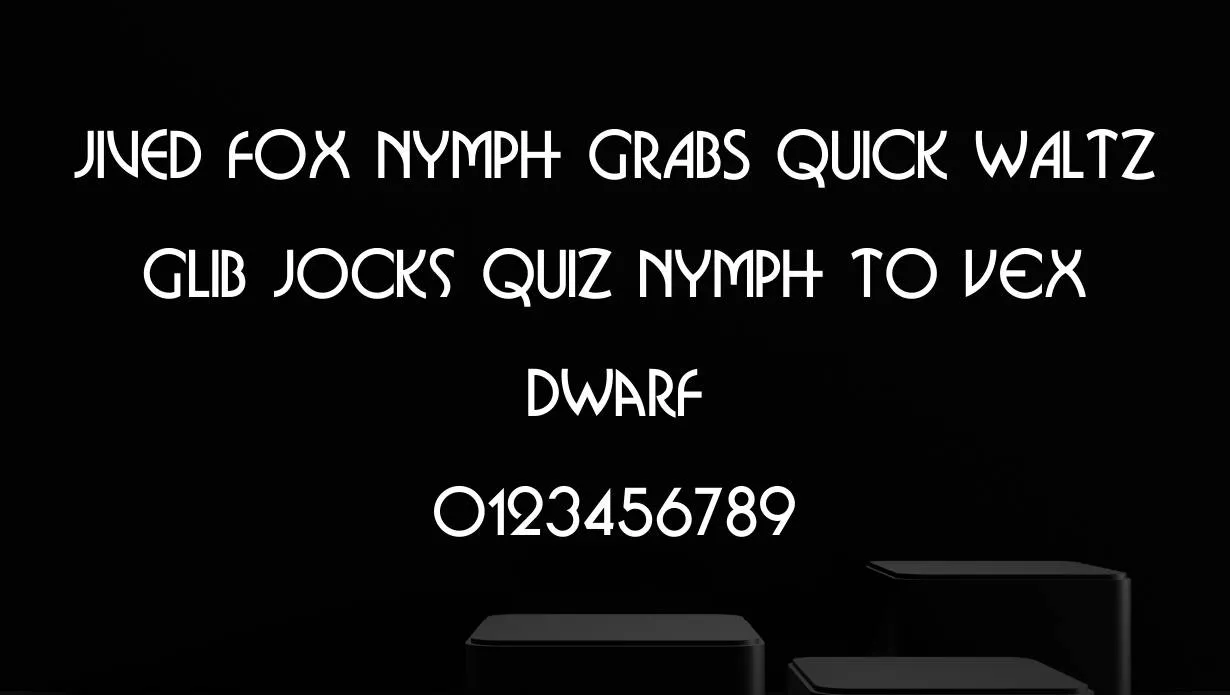
Omnibus Font is a fancy typeface designed by American-type designer Cyrus Highsmith. The typeface was released in 2007 through the Font Bureau foundry.
Omnibus’s most distinctive feature is its “unicase” design. In a traditional typeface, the capital letters are significantly different from the lowercase letters in both form and function. However, the two sets of letters share many commonalities. This makes the typeface more versatile and gives it a unique voice.
While this is a strong performer in print, it really shines on screens. The fonts have been carefully designed to work well at small sizes and low-screen resolutions. This makes them ideal for use in web and app design.
While this font includes a number of different weights and widths, all of the fonts share a common DNA. This family feeling is strengthened by the inclusion of a number of useful features, such as small caps, extended language support, fractions, and old-style figures.
Omnibus Font Family Appearance
| Name | Omnibus Font |
| Designer | Cyrus Highsmith |
| Style | Fancy |
Family of Omnibus Font
- Omnibus Regular
Some benefits of using this font include its efficient and purposeful quality, the fact that it is well-suited for use in signage and wayfinding, its extended language support, and its unicase design.
This font is popular for use in signage, wayfinding, web design, and app design. It is also frequently used for print projects where legibility is paramount.